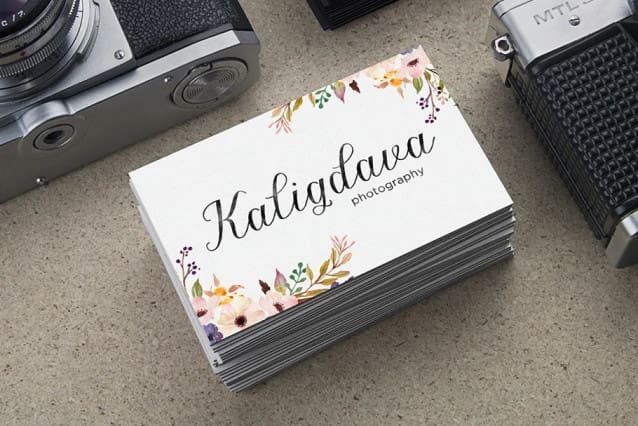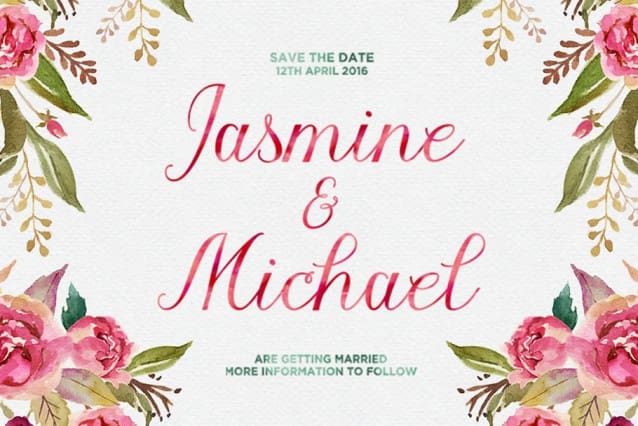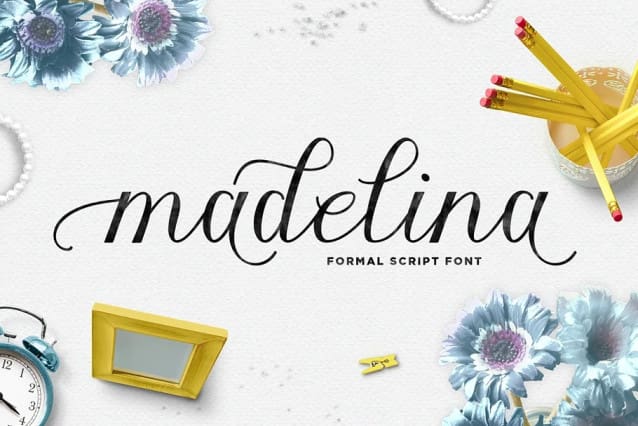
Madelina Font
Madelina Font is a formal calligraphy script font, classic and elegant touch.With almost 255 glyphs.Opentype features with stylistic alternates, ligatures and multiple language support. Can be used for various purposes.such as logos, wedding invitation, heading, t-shirt, letterhead, signage, lable, news, posters, badges etc.